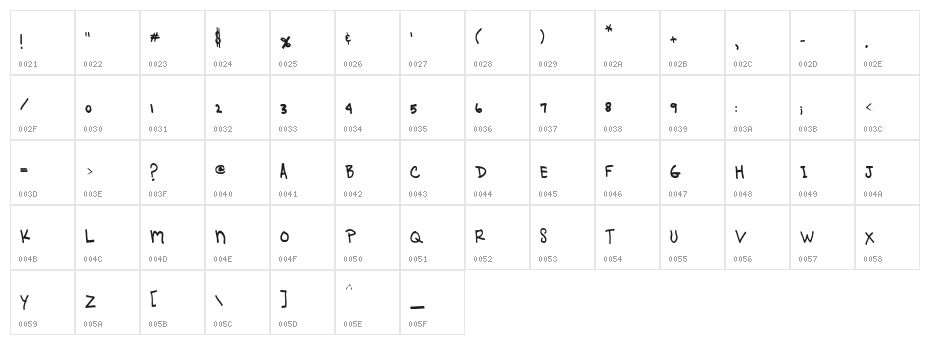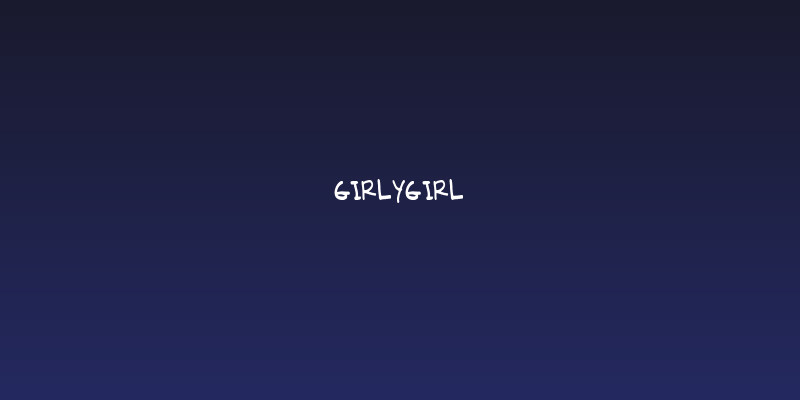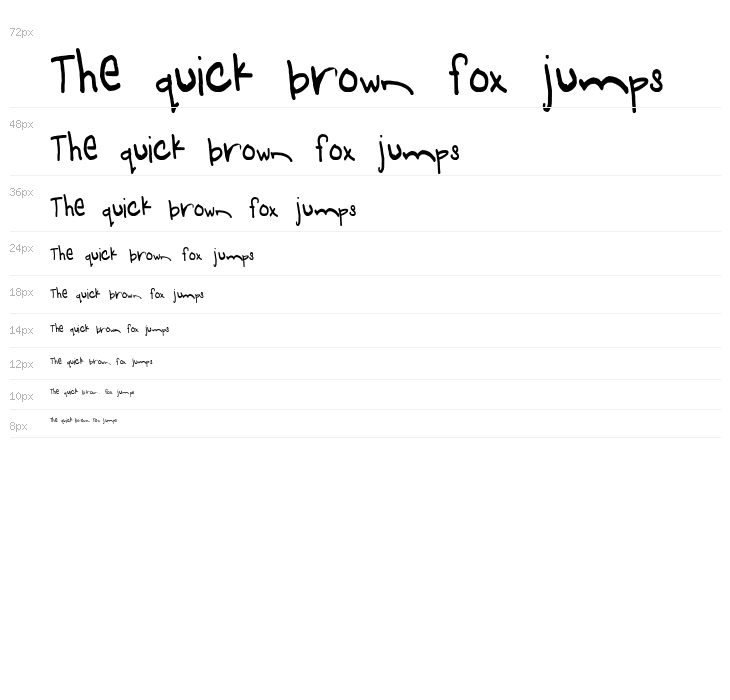
Girlygirl Font
Girlygirl Description
This playful and whimsical font features a handwritten style with a casual and friendly appearance. The letters are slightly irregular, adding a personal touch that mimics natural handwriting. The strokes are smooth and rounded, giving the font a soft and approachable feel. It includes both uppercase and lowercase letters, numbers, and a variety of special characters, making it versatile for different uses. The font's informal style is perfect for projects that require a personal or fun touch, such as invitations, greeting cards, or children's book covers. Its unique character shapes and playful design make it stand out, while still being easy to read.
| Use Case | Invitations, Greeting cards, Children's books |
| Proposed Projects | Ideal for invitations, greeting cards, children's books, and playful branding. |